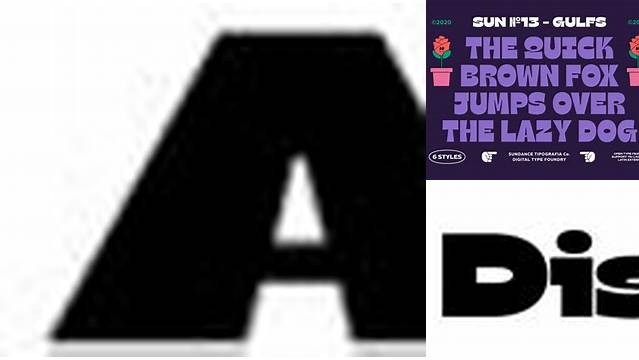
Are you on the hunt for a bold and eye-catching font to elevate your design projects? Look no further than Gulfs Display Expanded! This font is a fantastic choice for headlines, posters, branding, and anything else that needs a touch of modern flair. In this article, we'll dive deep into the world of Gulfs Display Expanded, exploring its features, discussing its best uses, and, most importantly, guiding you on how to download it for free.
What is Gulfs Display Expanded?
Gulfs Display Expanded is a typeface characterized by its extended width and clean, contemporary design. Its bold letterforms command attention, making it perfect for grabbing the reader's eye. The expanded nature of the font gives it a unique presence, setting it apart from more traditional typefaces. It’s a versatile font that can be used in a variety of design contexts, from digital to print. The clear and legible design ensures that your message is communicated effectively, while the unique style adds a touch of sophistication and modernity. Whether you're designing a website, creating marketing materials, or working on a branding project, Gulfs Display Expanded can help you achieve a professional and polished look. Its adaptability makes it a valuable asset in any designer's toolkit. Moreover, the font’s availability as a free download makes it accessible to a wide range of users, from students and hobbyists to professional designers working on a budget. This accessibility ensures that anyone can benefit from its distinctive style and use it to enhance their creative projects. The bold and expanded characteristics of Gulfs Display Expanded make it particularly effective in headlines and titles, where it can instantly capture attention and convey a sense of importance. Its clean lines and modern aesthetic also make it suitable for body text, especially in shorter paragraphs or callouts where readability is key. Overall, Gulfs Display Expanded is a versatile and valuable font that can add a touch of sophistication and modernity to any design project. Its unique style and free availability make it an excellent choice for anyone looking to enhance their creative work.
Key Features of Gulfs Display Expanded
When you're choosing a font, understanding its features is essential. Gulfs Display Expanded offers several characteristics that make it a standout choice. First and foremost, its expanded width immediately sets it apart. This wider stance gives the font a strong, confident presence on the page. Unlike condensed fonts that squeeze letters together, Gulfs Display Expanded stretches them out, creating a visually impactful effect. This makes it perfect for headlines, posters, and any design element that needs to grab attention. The clean lines and modern aesthetic contribute to its versatility. The font avoids unnecessary embellishments or flourishes, focusing instead on clear, legible letterforms. This simplicity makes it suitable for a wide range of design contexts, from corporate branding to creative projects. Its readability ensures that your message is always clear and easy to understand, while its modern style adds a touch of sophistication. Another key feature is its bold weight. The thick strokes of the letters give the font a strong visual presence, making it stand out even in busy designs. This boldness is particularly effective in headlines, where it can instantly capture the reader's attention. It also works well in logos and other branding elements, where a strong and memorable visual identity is crucial. The font’s legibility is also worth noting. Despite its expanded width and bold weight, Gulfs Display Expanded remains highly readable, even at smaller sizes. This makes it suitable for both headlines and body text, providing flexibility in your design choices. Its clear letterforms and consistent spacing ensure that your message is always easy to read, whether it's displayed on a screen or printed on paper. Finally, the font's availability as a free download is a significant advantage. This makes it accessible to a wide range of users, from students and hobbyists to professional designers working on a budget. You can use it in your personal and commercial projects without worrying about licensing fees, making it an excellent choice for anyone looking to enhance their creative work without breaking the bank. All these features combine to make Gulfs Display Expanded a versatile and valuable font for any designer.
Best Uses for Gulfs Display Expanded
So, where does Gulfs Display Expanded really shine? Its unique characteristics make it ideal for a variety of design projects. Think about using Gulfs Display Expanded for headlines and titles. The font’s bold, expanded design instantly grabs attention, making it perfect for drawing readers into your content. Whether you're designing a website, creating a poster, or laying out a magazine, Gulfs Display Expanded can help you create a strong visual hierarchy and highlight important information. The font’s commanding presence ensures that your headlines stand out and make a lasting impression. Consider leveraging Gulfs Display Expanded for branding and logos. A strong brand identity relies on memorable visuals, and this font can certainly deliver. Its unique style sets it apart from more generic typefaces, helping you create a logo that is both distinctive and recognizable. The font’s bold weight and clean lines convey a sense of confidence and professionalism, making it suitable for a wide range of industries. You might also consider using Gulfs Display Expanded in posters and flyers. When you need to make a statement, this font can help you get your message across loud and clear. Its expanded width and bold weight ensure that your text is easily visible, even from a distance. Whether you're promoting an event, advertising a product, or raising awareness for a cause, Gulfs Display Expanded can help you create eye-catching and effective promotional materials. Furthermore, you could incorporate Gulfs Display Expanded into web design. A well-chosen font can greatly enhance the look and feel of your website. Gulfs Display Expanded can be used for headings, navigation menus, and other key elements, adding a touch of modern flair to your online presence. Its legibility ensures that your website is easy to read, while its unique style helps you stand out from the crowd. Lastly, don't underestimate it's use in social media graphics. In the fast-paced world of social media, capturing attention is crucial. Gulfs Display Expanded can help you create visually appealing graphics that stand out in users’ feeds. Use it for captions, banners, and other design elements to make your content more engaging and memorable. Its bold and modern style is perfect for grabbing attention and conveying your message effectively.
Tips for Using Gulfs Display Expanded Effectively
Now that you've got Gulfs Display Expanded installed and ready to roll, let's talk about making the most of it. This font is awesome, but like any design tool, it works best when you use it thoughtfully. First off, think about contrast. Because Gulfs Display Expanded is so bold, it pairs really well with simpler, more understated fonts. Try using it for headlines and titles, and then choose a clean, readable font like Arial, Helvetica, or Open Sans for your body text. This creates a nice visual hierarchy and keeps your design from feeling too overwhelming. Next, pay attention to spacing. The expanded width of Gulfs Display Expanded means that it can sometimes feel a bit cramped if the letter spacing is too tight. Experiment with adding a little bit of extra space between the letters (also known as tracking) to give the font some breathing room. This can make it look more elegant and easier to read. Think about color. Gulfs Display Expanded looks great in a variety of colors, but it really shines when you use it to create contrast. Try using a bright, bold color for your headlines and titles to make them pop against a more neutral background. Or, use a dark color on a light background for a classic, sophisticated look. Furthermore, consider context. This font is perfect for grabbing attention, so it's ideal for situations where you need to make a statement. Use it for posters, flyers, social media graphics, and other designs where you want to stand out from the crowd. However, it might not be the best choice for more formal or traditional designs. Lastly, don't be afraid to experiment. The best way to learn how to use Gulfs Display Expanded effectively is to play around with it and see what works. Try different combinations of fonts, colors, and spacing to create unique and eye-catching designs. With a little bit of practice, you'll be able to use this font to create amazing things. Remember, design is all about having fun and expressing your creativity, so don't be afraid to try new things and push the boundaries.
Gulfs Display Expanded is a fantastic font that can add a touch of modern flair to any design project. Its bold, expanded design makes it perfect for headlines, posters, branding, and more. And best of all, it's available as a free download from various reputable sources. By following the tips and guidelines outlined in this article, you can use Gulfs Display Expanded effectively to create eye-catching and memorable designs. So go ahead, download it, install it, and start experimenting. With a little bit of creativity, you'll be amazed at what you can create!